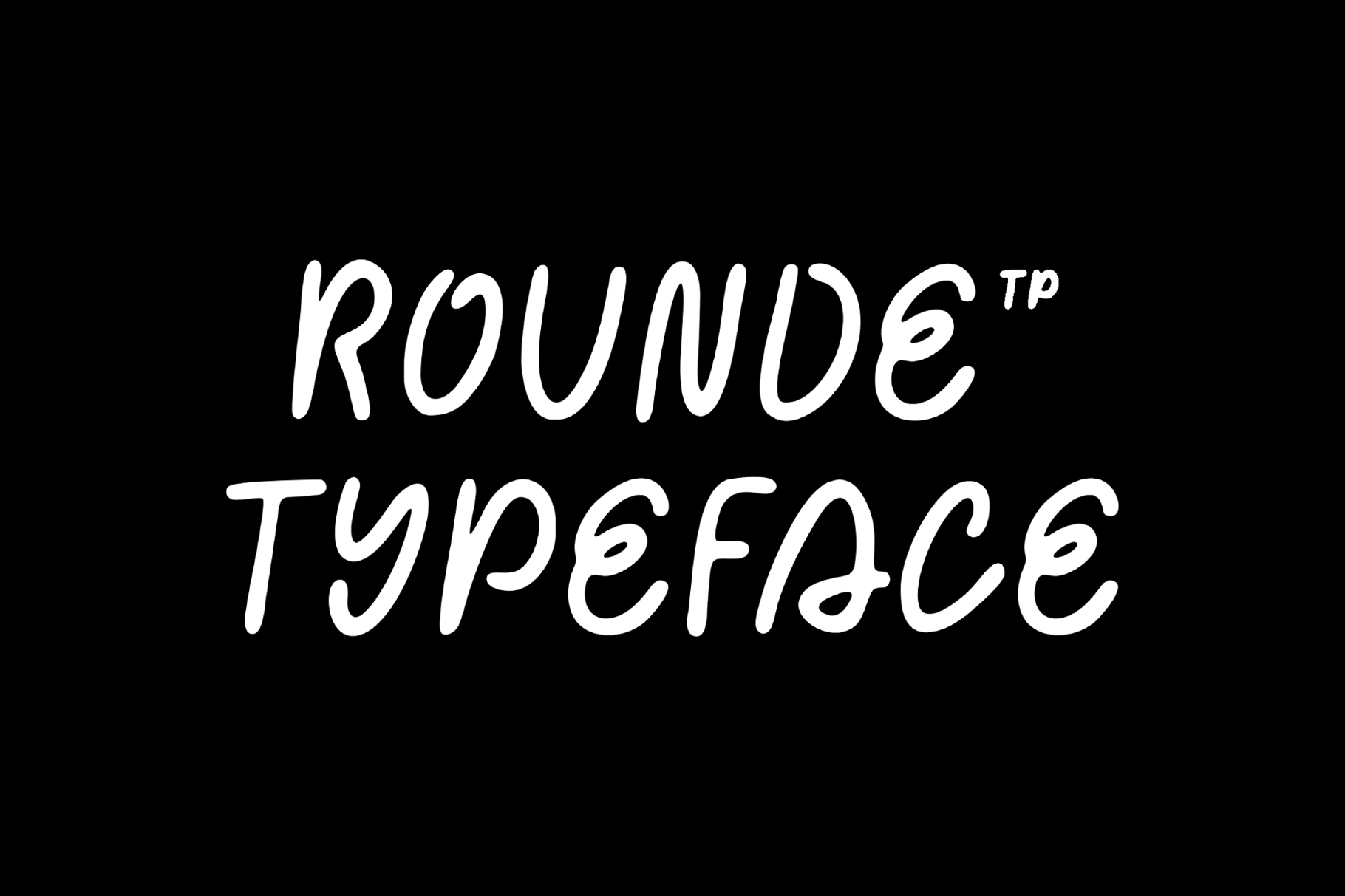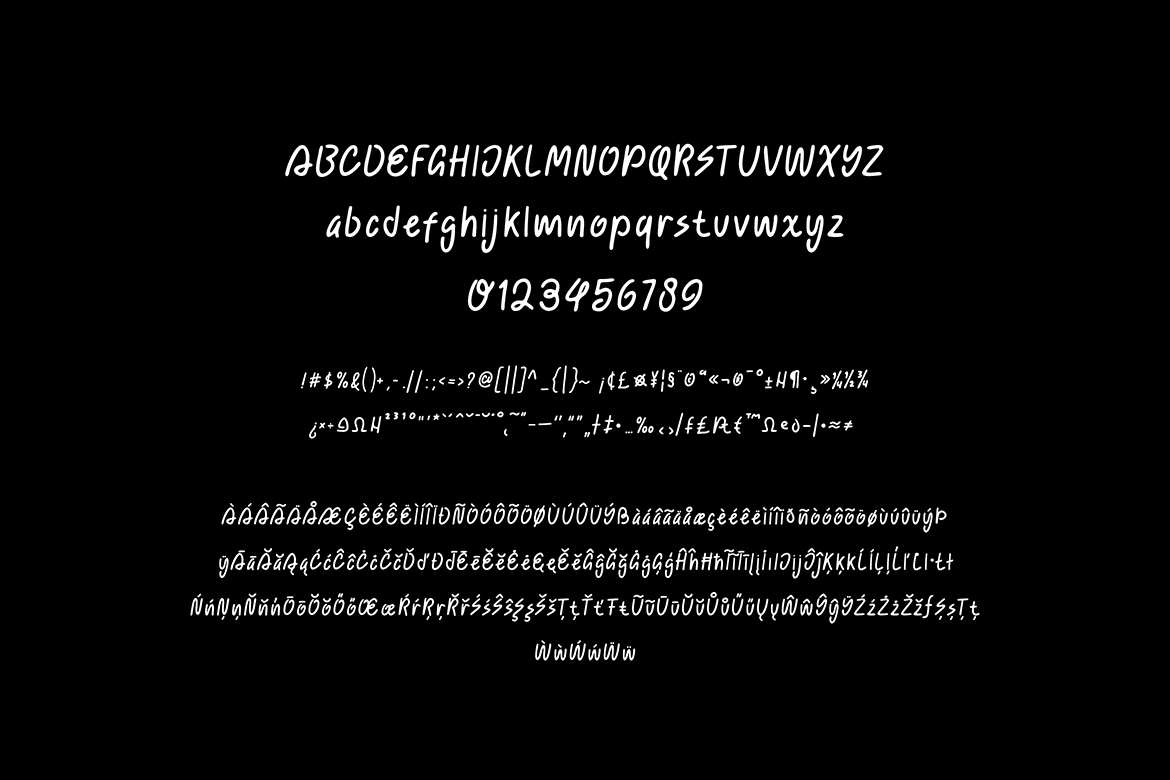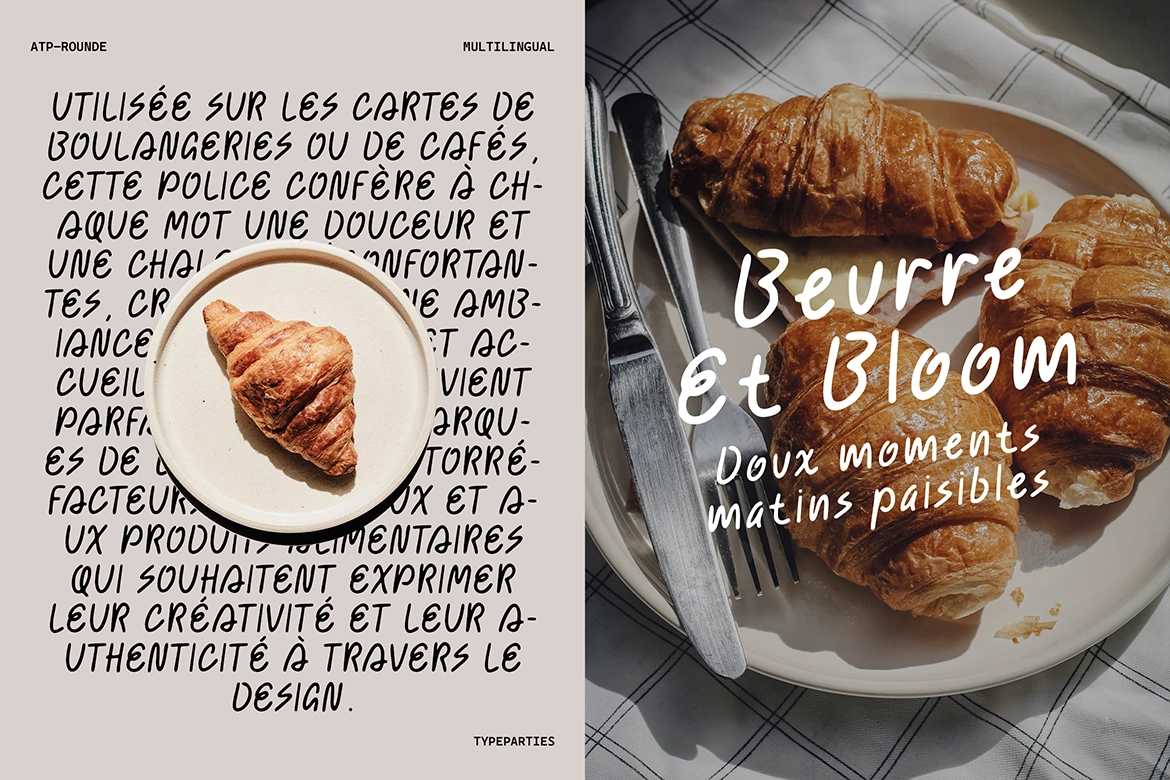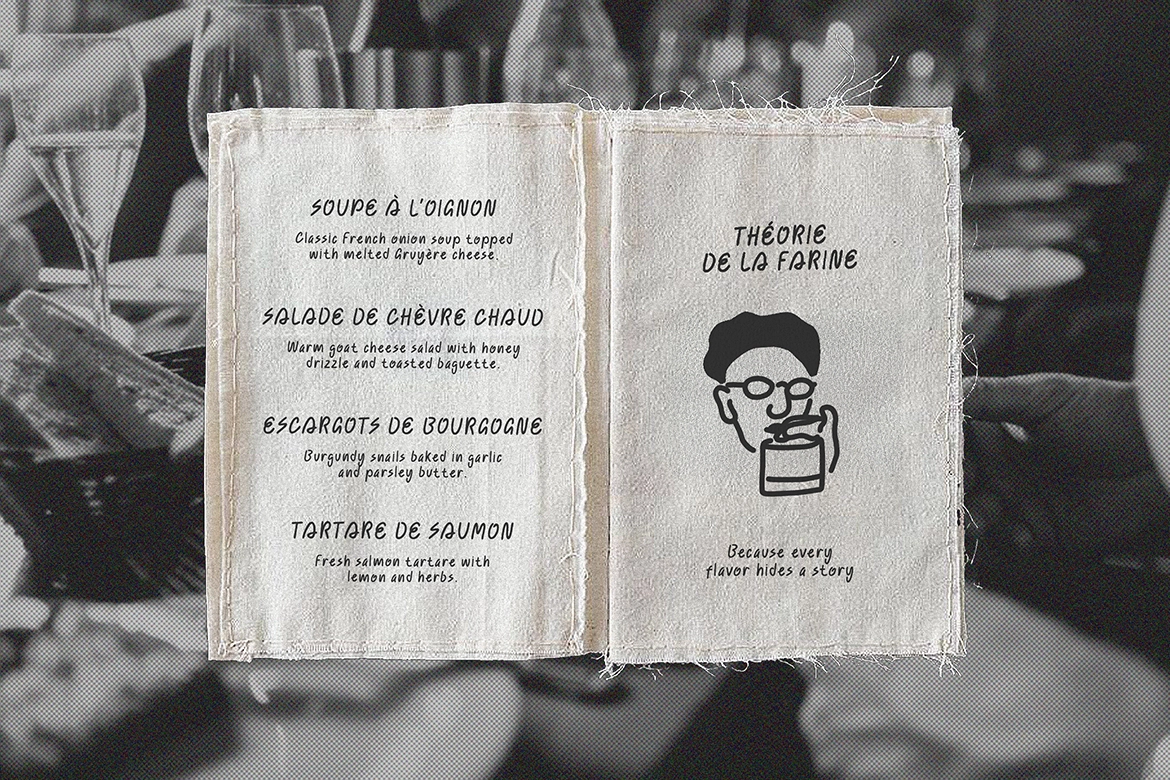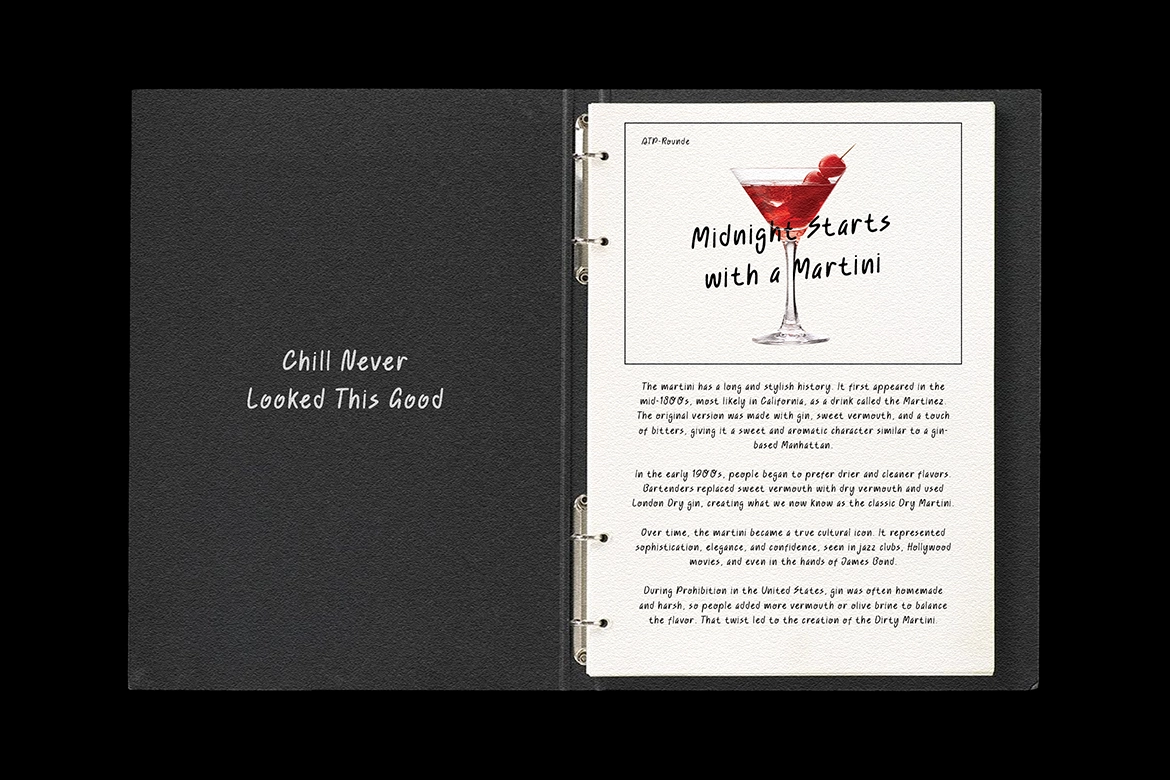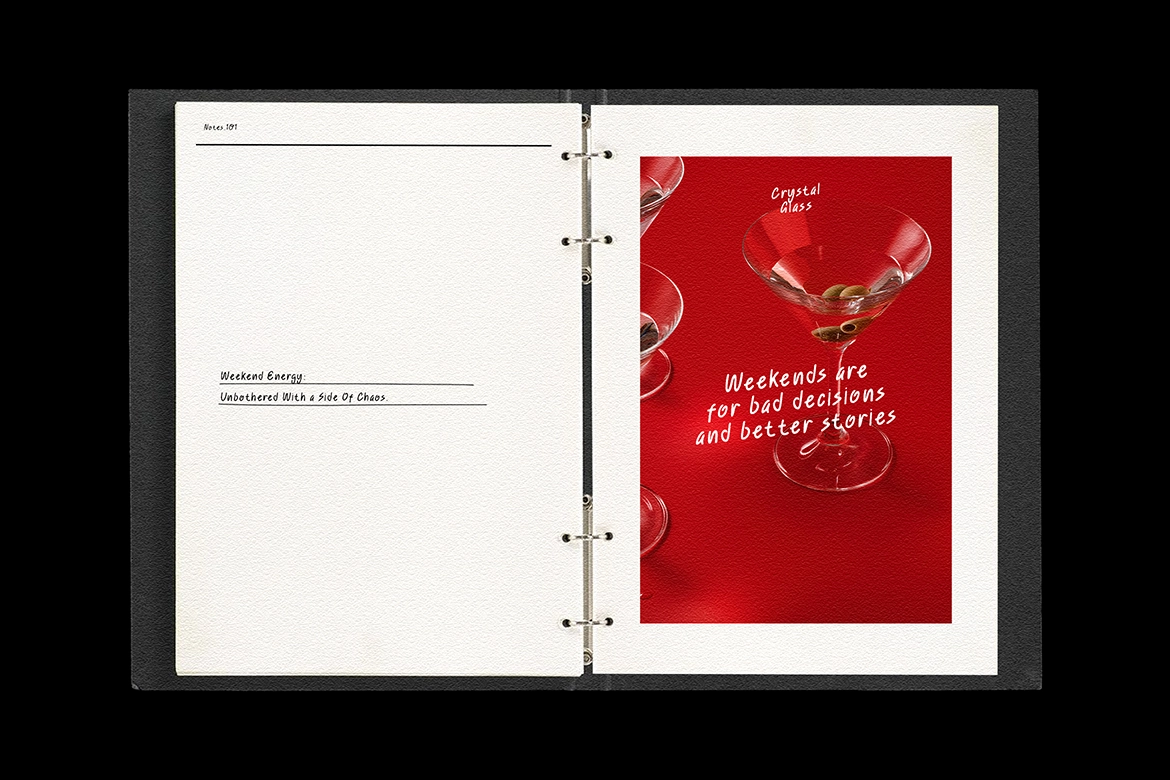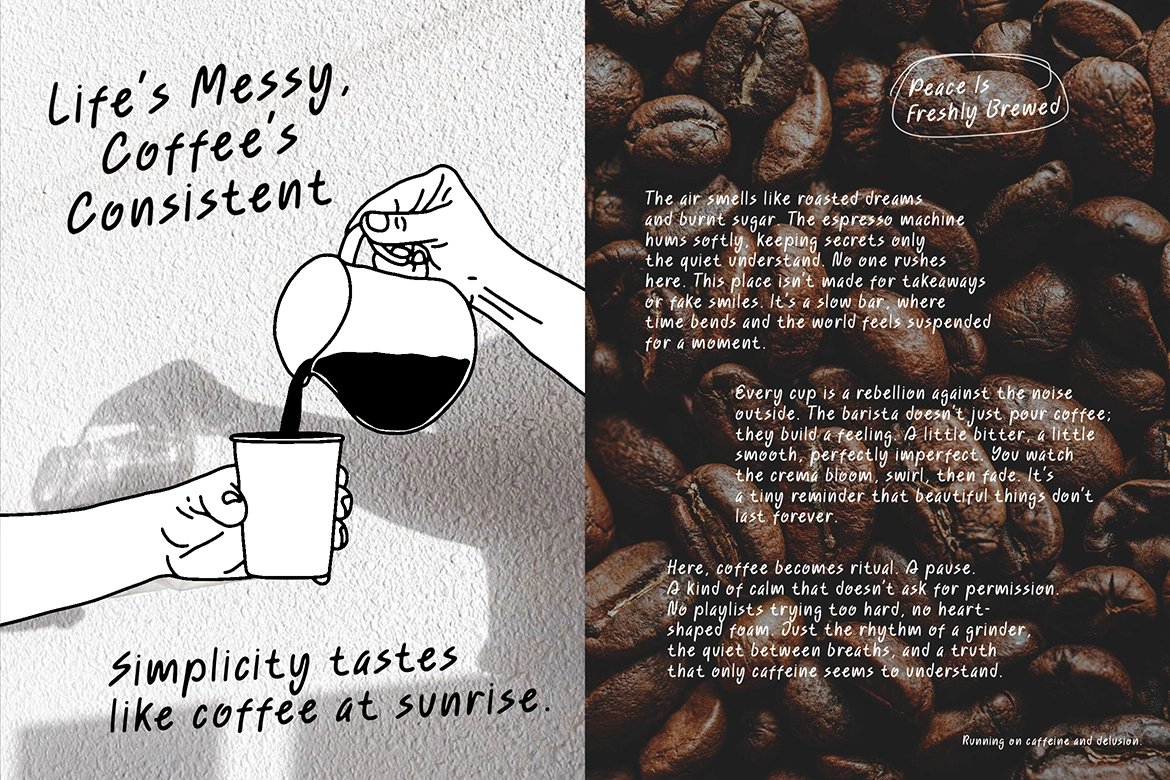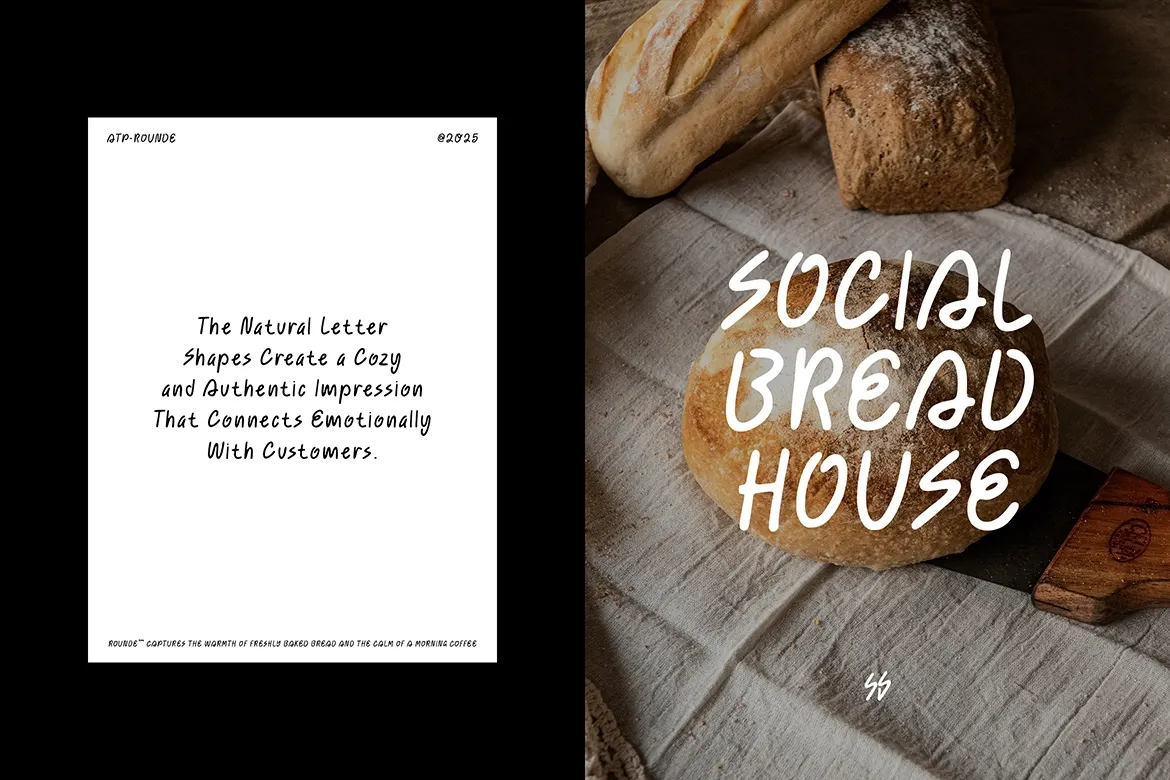
Rounde - Handwritten Rounded Font
ATP-Rounde
This handwritten font has a soft rounded shape, loose marker rhythm, and friendly café-table personality. Its letters are smooth and casual, with enough irregularity to keep every line warm, personal, and quietly off-duty.
Rounde works well for café menus, bakery packaging, brunch posters, recipe cards, coffee labels, deli branding, handwritten notes, lifestyle blogs, social media quotes, product tags, stationery, restaurant inserts, and small editorial layouts. The rounded letterforms keep longer text readable, while the hand-drawn character gives headlines the kind of charm that usually requires a real pen and a little caffeine.